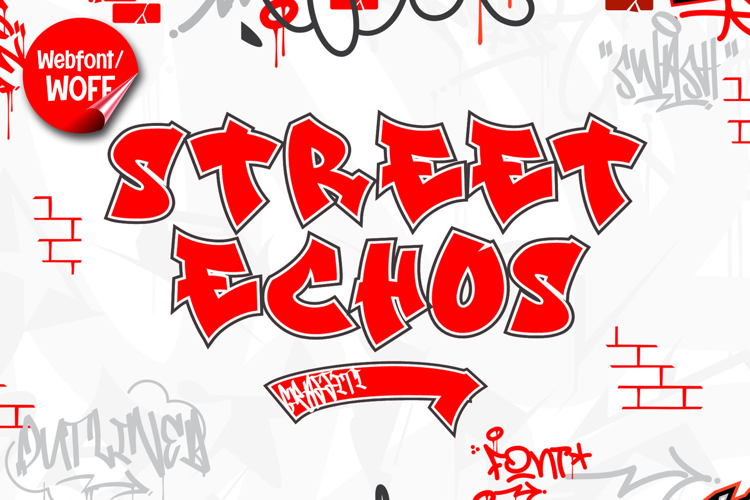
Street Echos | Outlined Graffiti Webfont for Urban Websites
Street Echos is an outlined graffiti webfont designed to bring a bold yet clean street-style aesthetic into modern website design. Featuring strong letter structures with outline details, this font captures the essence of graffiti art while maintaining a refined and versatile appearance for digital use. It is an excellent choice for projects that require an urban identity with a distinctive and modern visual twist.
Street Echos includes a complete set of uppercase characters designed with bold graffiti forms enhanced by outlined styling. The outline effect adds depth and contrast, making each letter visually striking without being overly heavy. These letterforms are ideal for headlines, banners, hero sections, and featured content where attention-grabbing typography is essential.
In addition to letters, the font includes numbers and punctuation, allowing flexible usage across various parts of a website. It works well for promotional text, event announcements, pricing displays, and navigation highlights. Each character maintains a consistent outlined graffiti style, ensuring a cohesive and unified visual identity throughout the layout.
With multilingual support, Street Echos includes a wide range of accented characters, making it suitable for international websites and global audiences. This allows content to be displayed clearly across different languages while preserving the bold graffiti aesthetic.
The outlined graffiti style of Street Echos makes it especially suitable for urban-themed websites, streetwear brands, music platforms, gaming interfaces, and creative portfolios. Its outlined design provides flexibility in styling, allowing it to be used over various backgrounds while maintaining clarity and visual impact. This makes it a versatile choice for both bold and minimal layouts.
Despite its stylized and decorative appearance, Street Echos is designed with readability in mind. The spacing and structure of each character are carefully balanced to ensure clarity, particularly in display sizes. This makes it effective for impactful headings and short content elements where both style and usability are important.
Street Echos is a webfont that combines graffiti inspiration with clean outlined design and modern digital performance. Its strong shapes, distinctive outlines, and urban influence create a unique typographic presence that enhances website design. For projects that require a bold, creative, and flexible graffiti-style font, Street Echos offers a powerful and engaging solution.